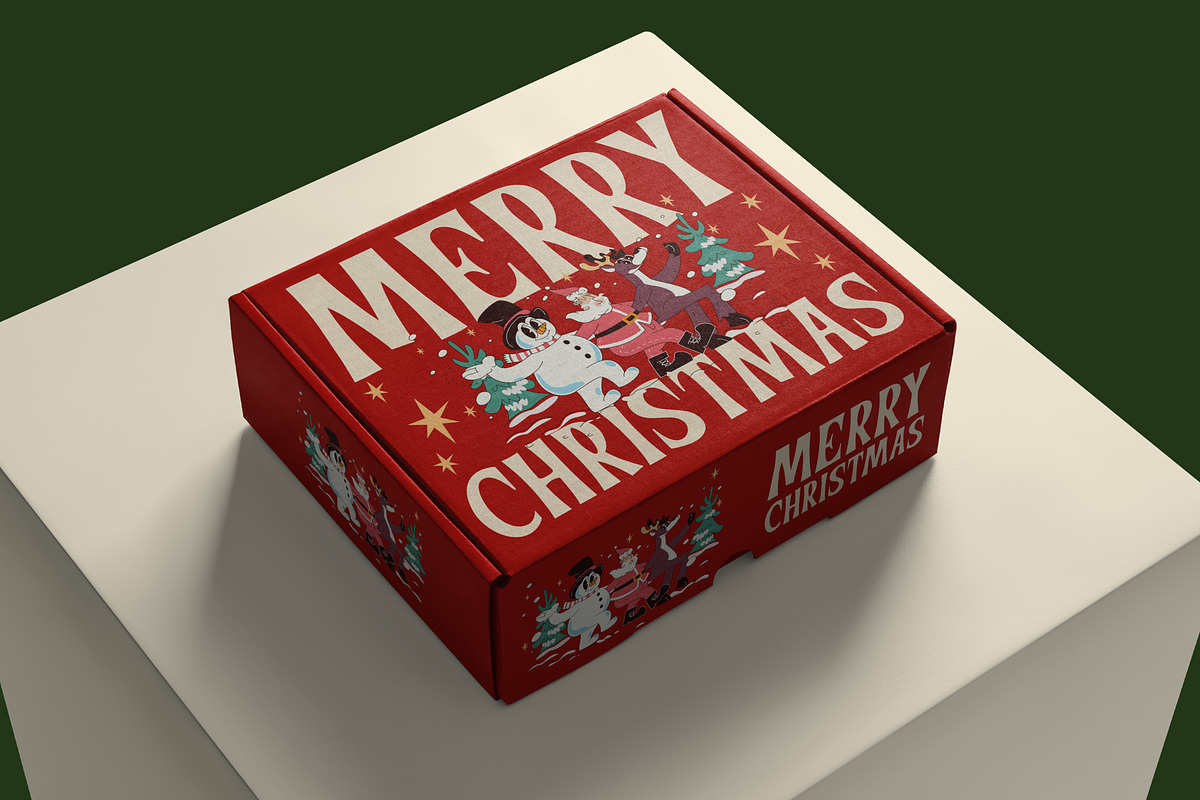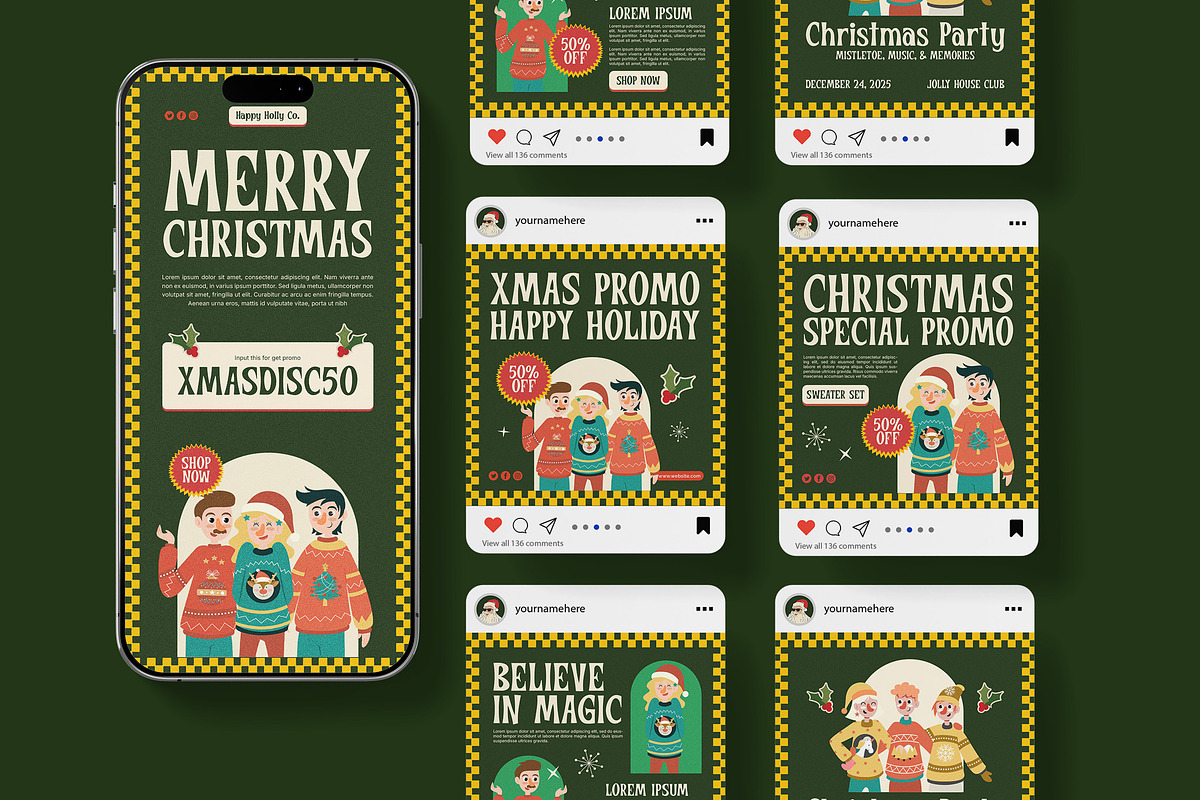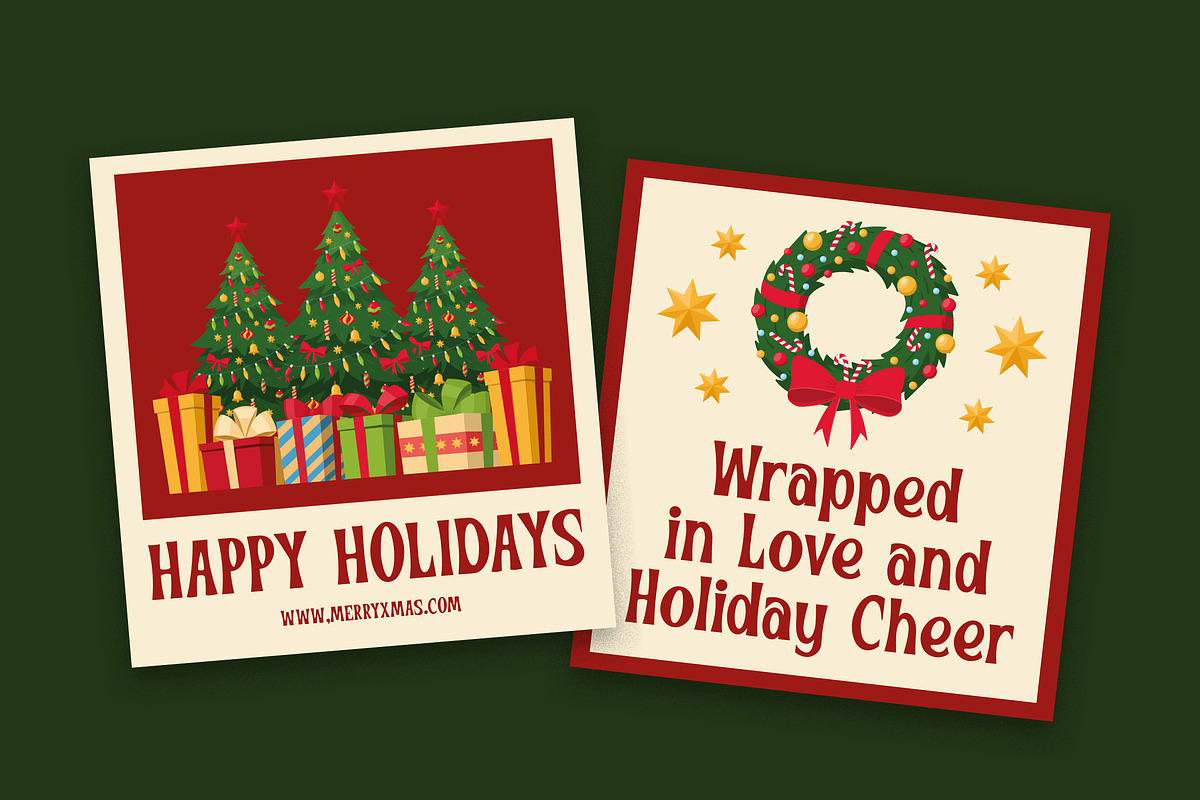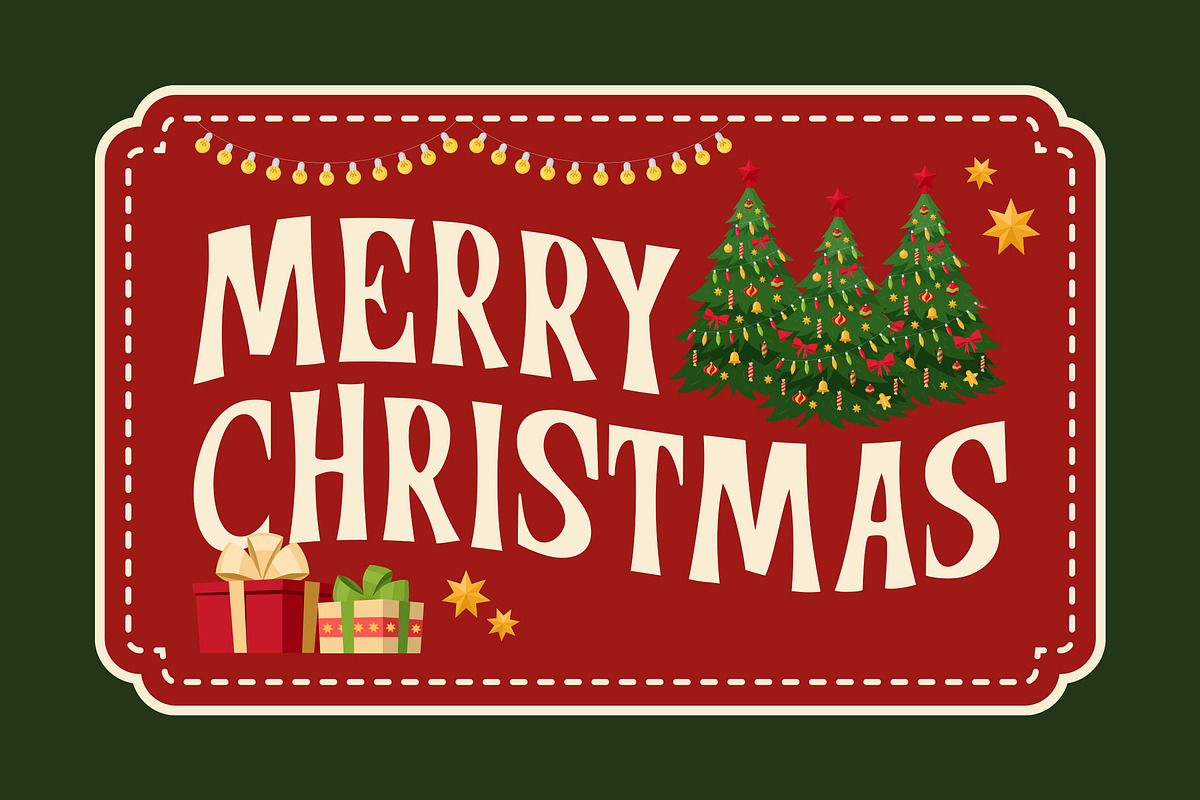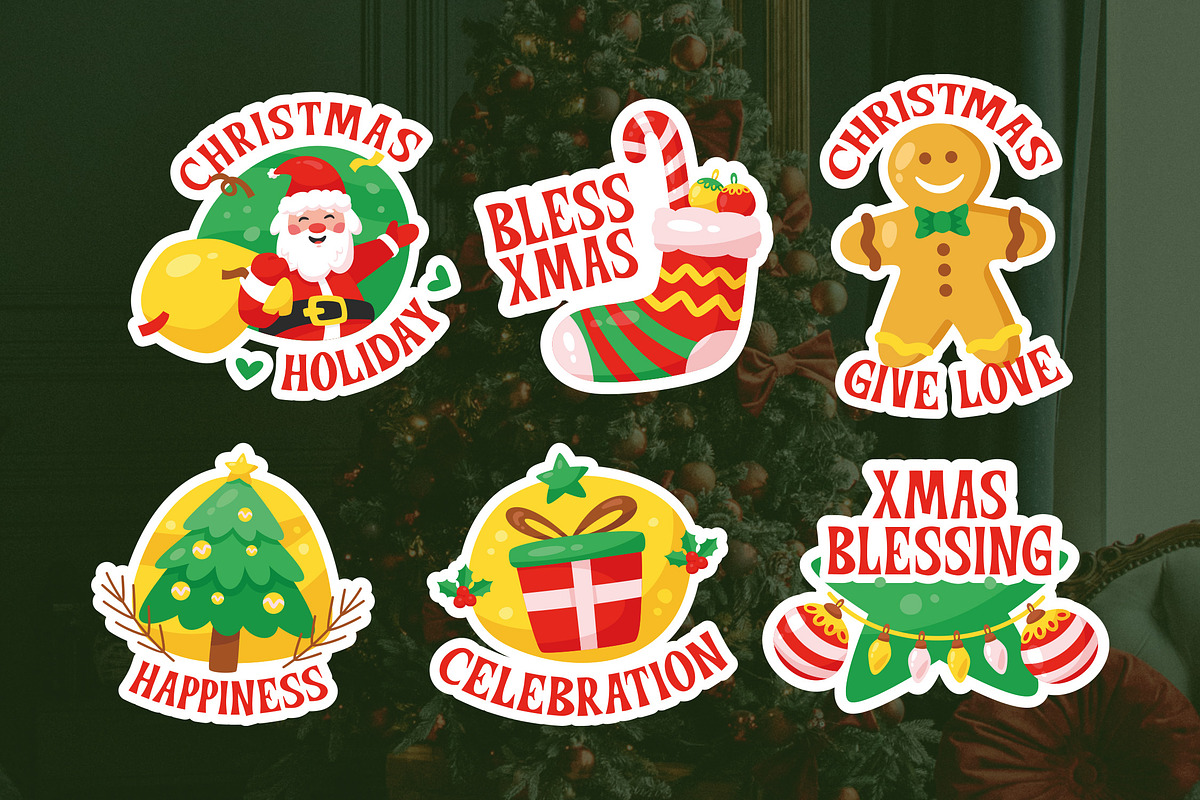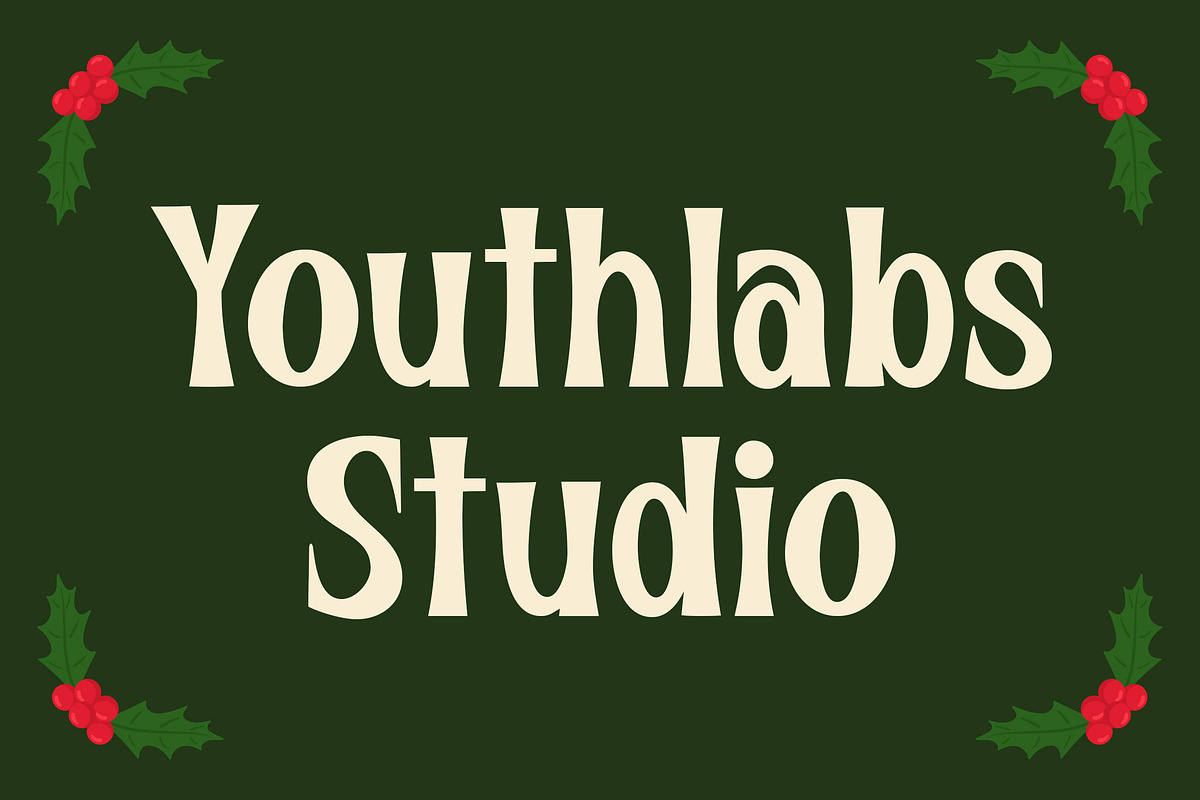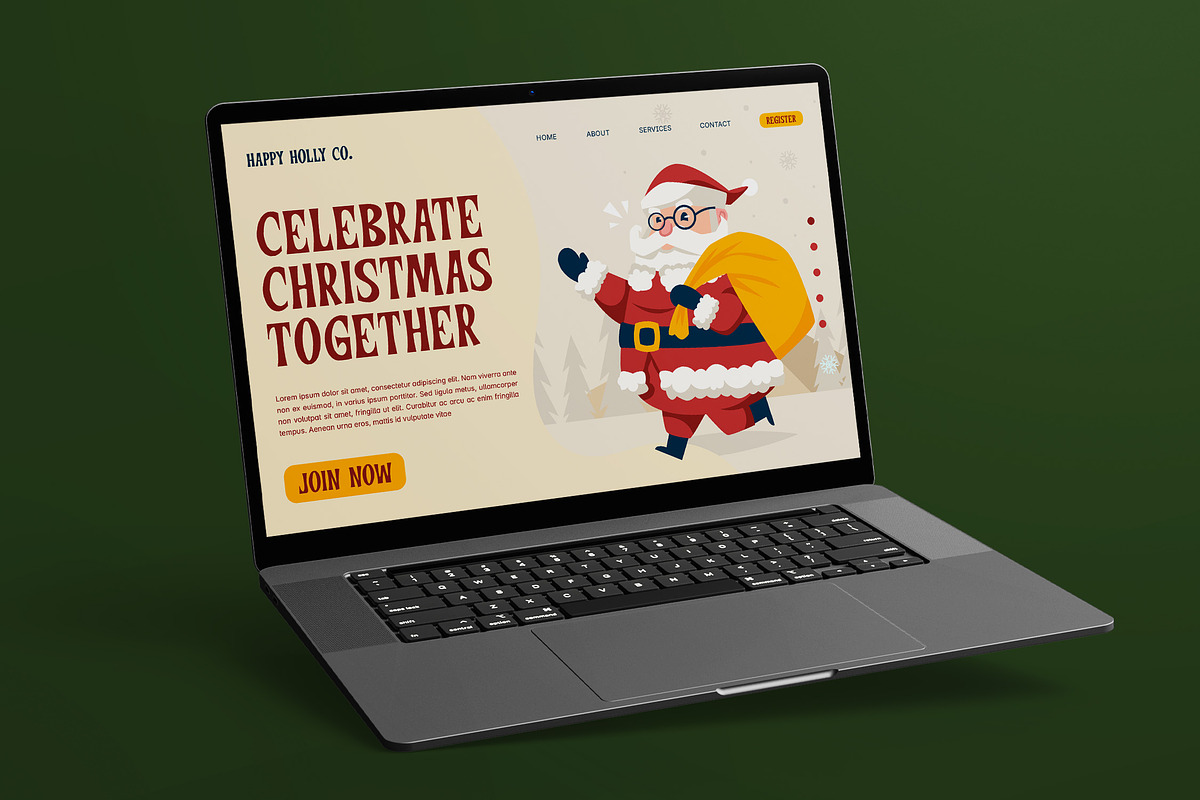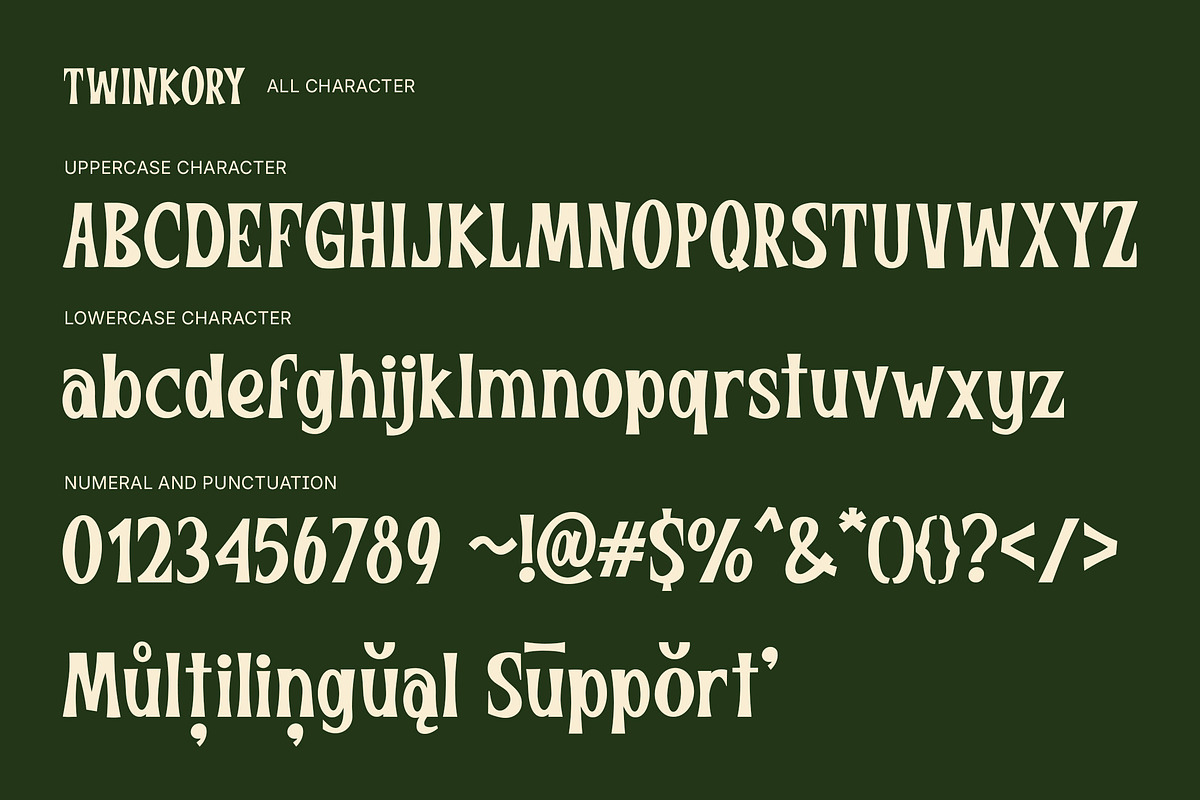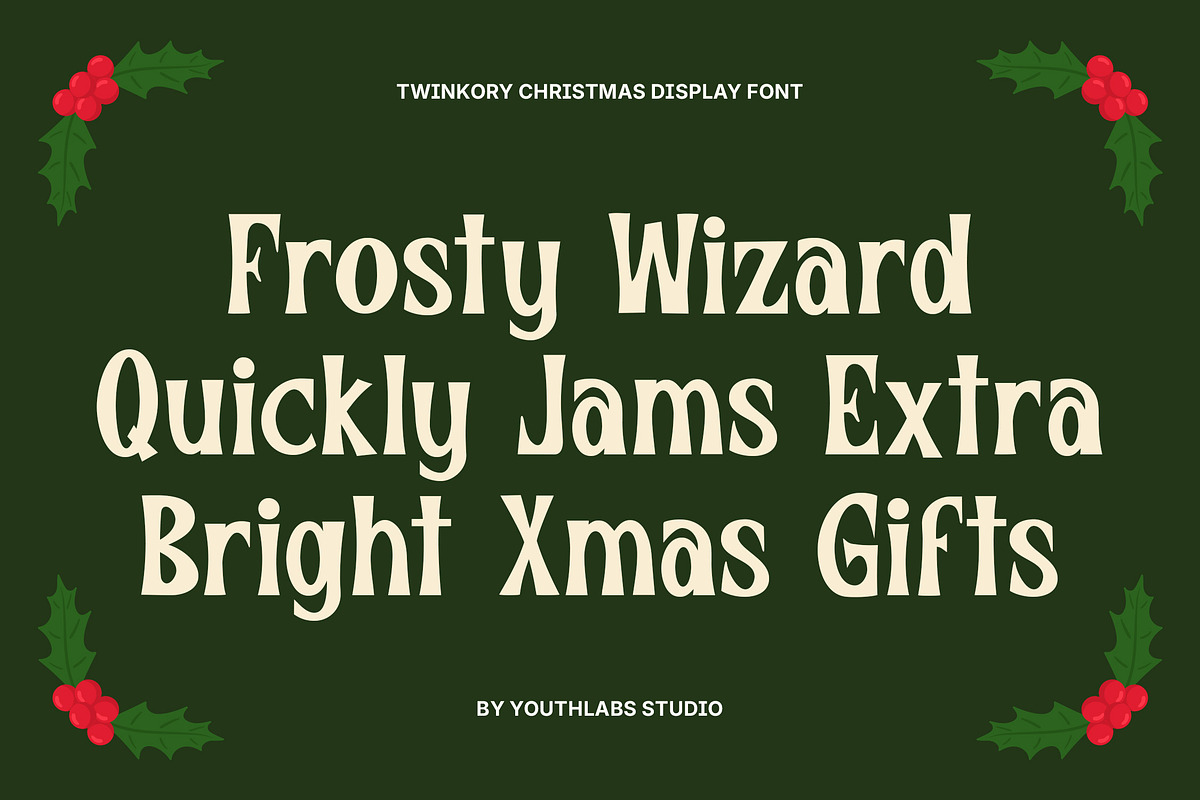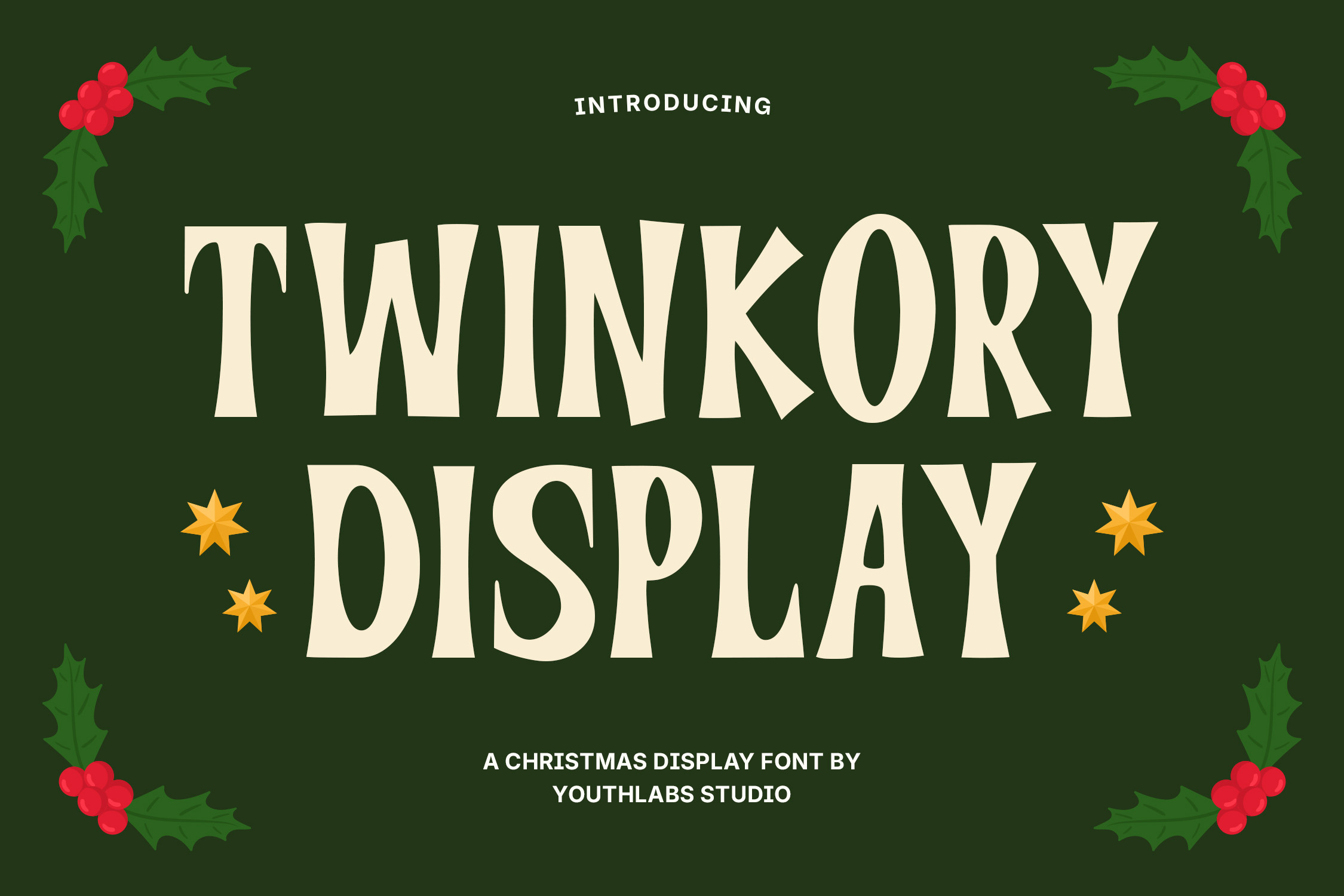
Twinkory - Christmas Display Font
Introducing Twinkory Display, a playful and joyful Christmas font that captures the warm and festive spirit of the holiday season. With its bold yet friendly letterforms, Twinkory Display brings cheer to any design — perfect for greeting cards, holiday posters, packaging, party invitations, and cozy branding projects. Each character is crafted with a touch of whimsy and vintage Christmas charm, making it ideal for projects that need both festivity and personality. Whether you’re creating a merry logo, social media post, or DIY craft print, Twinkory Display adds the sparkle of Christmas magic to your design.
- Playful festive display style
- Uppercase & lowercase characters
- Perfect for Christmas and winter themes
- Great for greeting cards, posters, and packaging
- Clean vector-based design